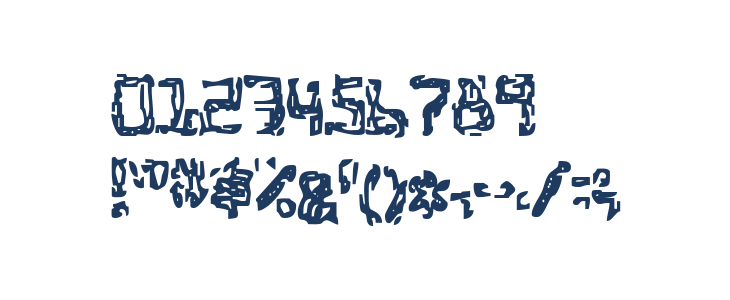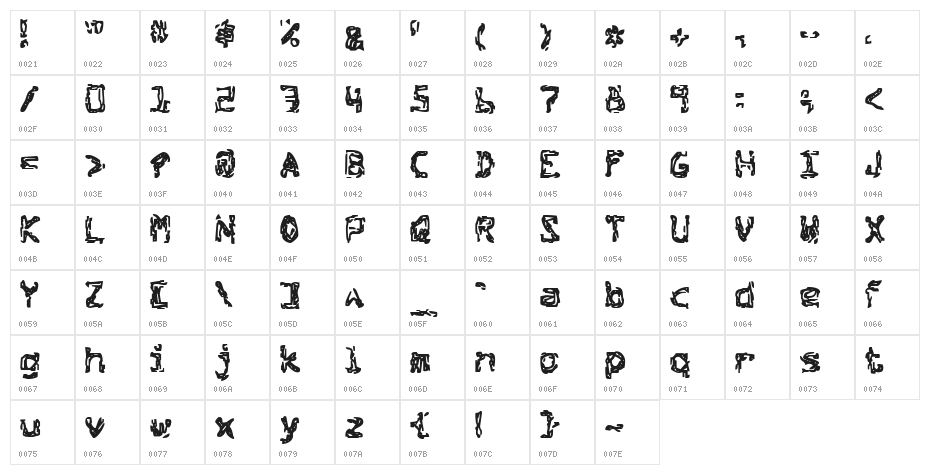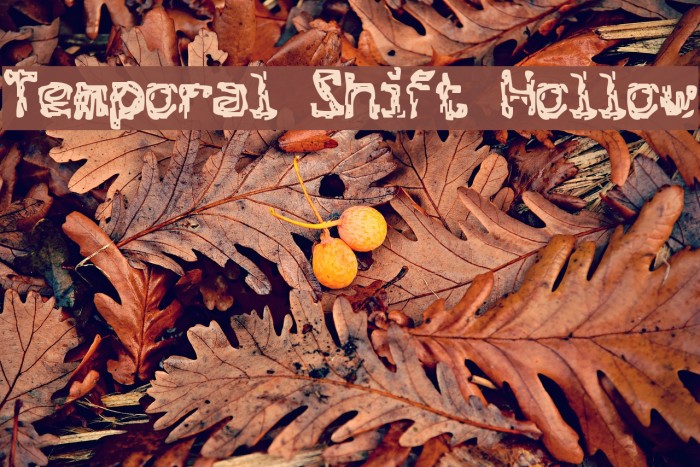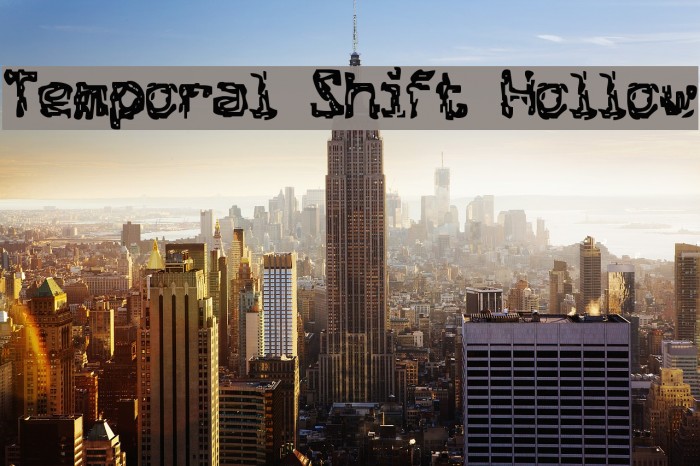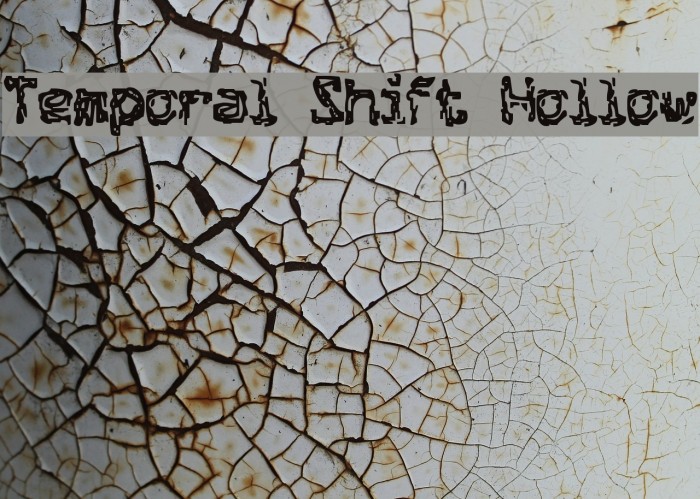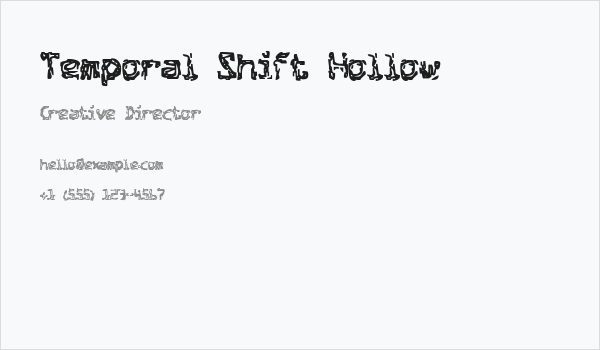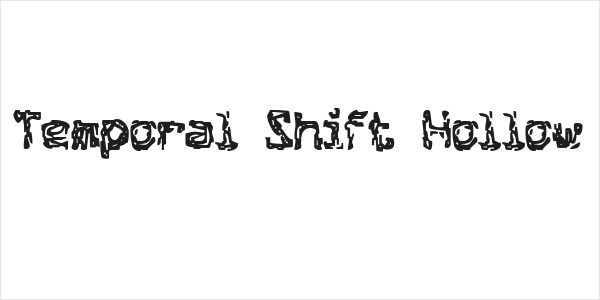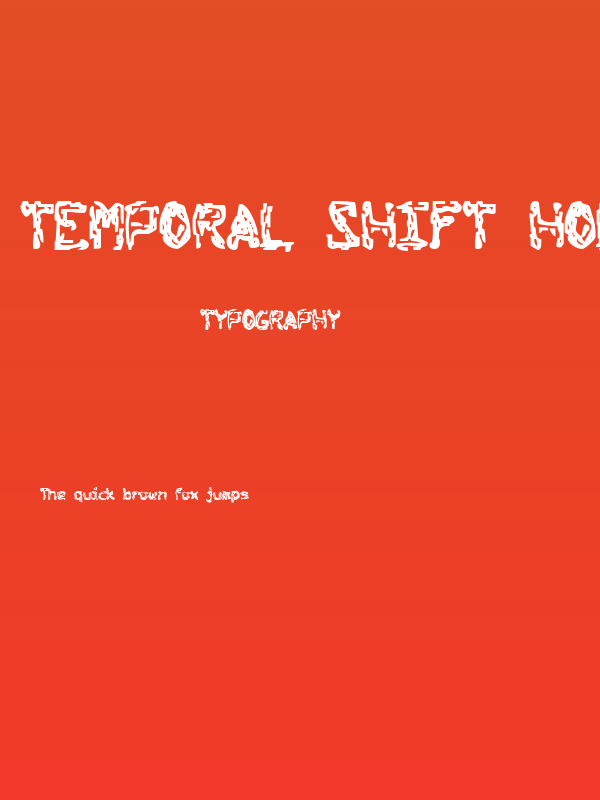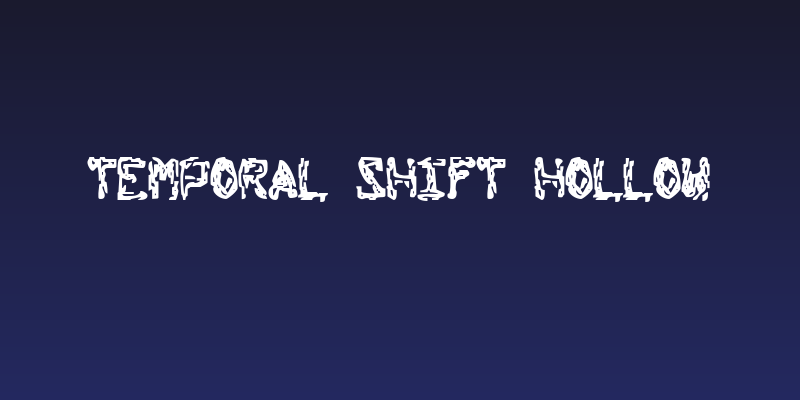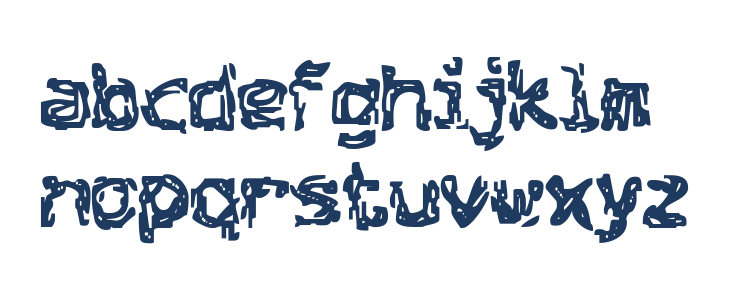
Temporal Shift Hollow Font
Temporal Shift Hollow Description
This font features a unique, hollow design with a temporal shift effect, giving each character a fragmented and abstract appearance. The letters are bold and have a distinct, artistic style that makes them stand out. The uppercase and lowercase letters maintain a consistent design theme, with jagged edges and irregular shapes that create a sense of movement and dynamism. The numbers and special characters follow the same aesthetic, ensuring a cohesive look across all elements. This font is ideal for projects that require a bold, unconventional style.
Overall StyleModern, Abstract
Proposed ProjectsIdeal for artistic projects, album covers, posters, and any design requiring a bold, unconventional style.